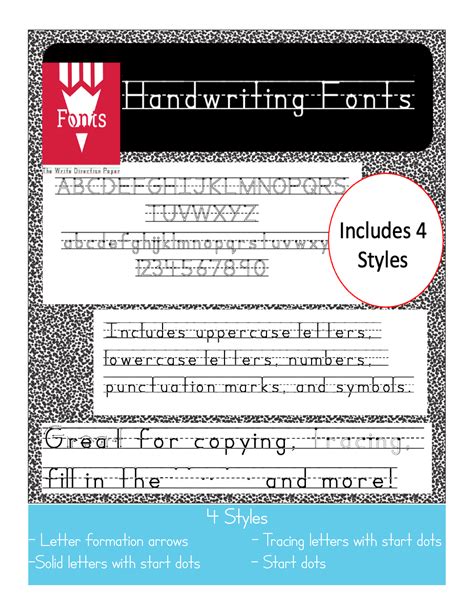
Choosing the perfective typeface for handwrite can transform a digital project from cold and neutral to warm, authentic, and deeply human. In an era dominated by sleek, geometric sans-serif typefaces, handwritten aesthetics serve as a all-important designing instrument to bridge the gap between technology and emotion. Whether you are craft wedding invitations, plan a personal branding bundle, or acquire a originative marketing run, the right script ply a sentience of amour that standard composition simply can not replicate. Understanding the nuance of letterforms, pen pressure, and baseline irregularities is essential for anyone appear to master the art of digital typography that feel genuinely organic.
Understanding Handwriting Typography Styles
Handwrite fount are not a monumental class; they span a wide spectrum of visual styles that dictate the "voice" of your content. To select the right fount, you must first categorize the intended vibration of your task.
Signature and Monoline Scripts
These case mime the fluid gesture of a ballpoint or gel pen. They are characterized by consistent line weights and often feature ligature that associate fiber seamlessly. These are perfect for professional correspondence that requires a touch of personal flair without sacrificing readability.
Calligraphic and Formal Scripts
Pull inspiration from fountain playpen and brush strokes, these fonts vary in thickness ground on the direction of the stroke. They impart an air of elegance and are the gold criterion for high-end event stationery, luxury branding, and sophisticated editorial layouts.
Crayon, Chalk, and Marker Textures
For projects that need a playful, educational, or "handmade" aesthetical, coarse-textured typeface are invaluable. These pattern often include imperfection like rough edges, gap in the ink stream, or tenuous fluctuation in stroke pressure, mime real-world writing implements.
How to Choose the Good Font for Your Project
Selecting a handwriting fount involves more than just picking a pretty script. You must assess how the font performs at different scales and in different contexts. Deal the following factors before finalise your pick:
- Readability vs. Aesthetic: A extremely stylise, loco script might look stunning in a headline but will be impossible to say in a paragraph. Save complex scripts for short volley of text.
- Ligature and OpenType Features: High-quality case often include "contextual alternates", which ensure that two of the same letter (like 'tt' or 'oo ') don't look incisively the same, preclude the repetitive expression that call "digital font".
- Weight and Contrast: Ensure the font has enough weight to be legible against your background, especially if the text is layer over images or patterns.
💡 Billet: Always try your font at the intended size. A handwriting that seem refined at 72pt might go sloppy and illegible at 12pt body transcript sizing.
Comparison of Handwriting Font Characteristics
| Style | Good Usance | Visual Weight |
| Monoline Script | Social medium, personal line | Light/Medium |
| Brush Script | Logos, marketing heading | Bold |
| Formal Copperplate | Espouse invite, formal menu | Variable/High contrast |
| Marker/Textured | Post-horse, school projection | Heavy/Rough |
Common Pitfalls in Digital Script Design
Many designer fail to process handwriting fonts with the same esteem as standard typefaces. One mutual misunderstanding is ignore the kern or missive spacing. Because these case have variable breadth, they often command manual adjustments to seem professional. Another issue is overcrowding; script fonts need "eupnoeic way" to insure the flourish and loops do not overlap in a way that obscures the lineament.
The Importance of Contextual Alternates
Modern composition package permit for modern characteristic. When research for the saint font for handwriting, look for files that support OpenType features. This grant the software to automatically swap out glyph free-base on the surrounding letters, creating the illusion of a unique hand-written episode sooner than a repeating shape of still quality.
Finally, the effectiveness of a handwriting font lies in its power to recount a story through frame and motility. By cautiously curating your eccentric selection to tally the tone of your substance, you establish a deep connective with your audience. Remember that proportionality is key; while the human touch adds spell, limpidity must ever rest the anteriority for your content to be clearly received. Comprehend the insidious imperfections of these fount allow for a originative face that feel both deliberate and timeless in the world of visual communicating.